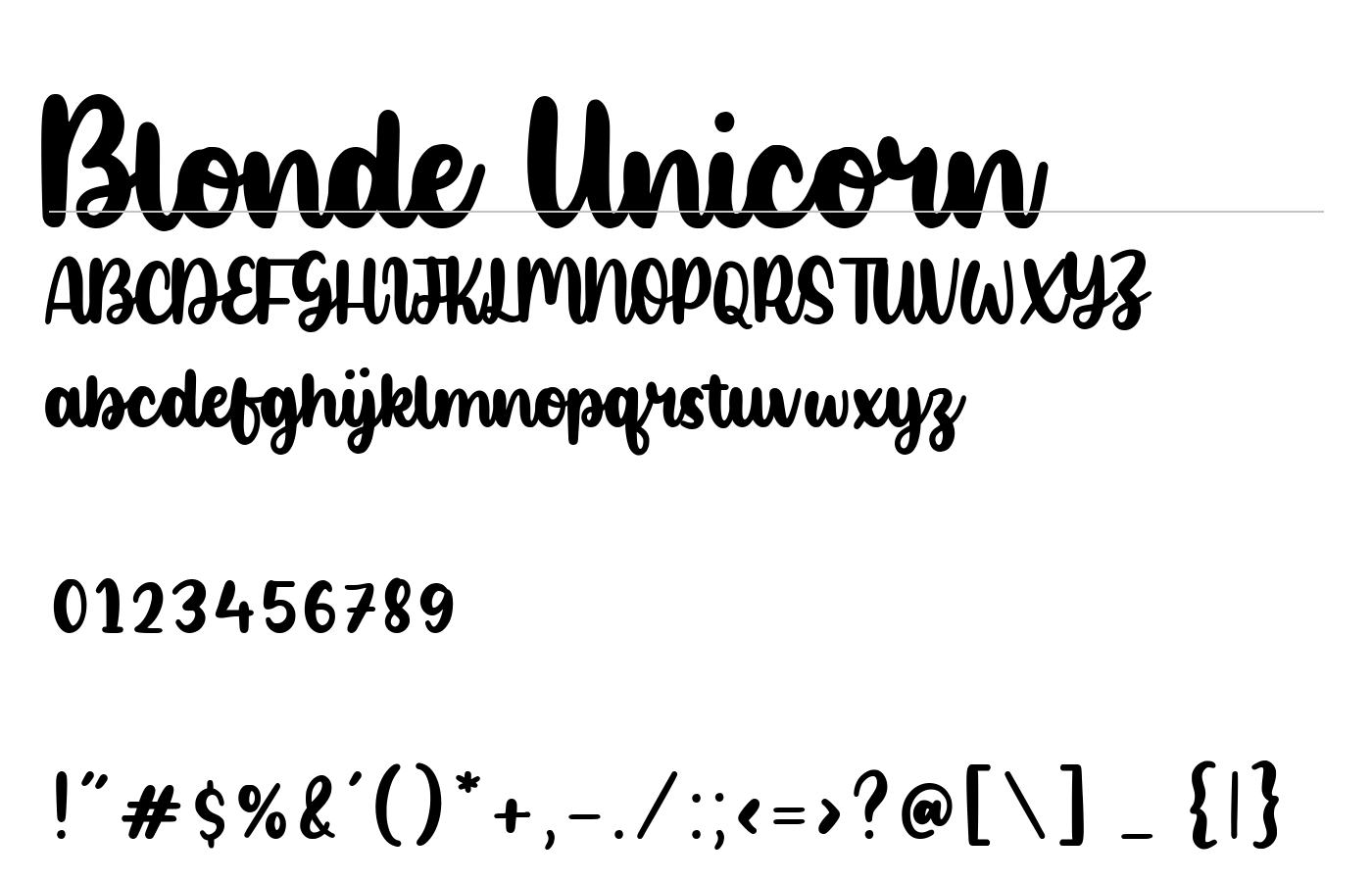
Blonde Unicorn is a playful and friendly script font with a bold, rounded style that mimics casual handwriting. Its smooth, connected letterforms and moderate x-height create an inviting and approachable vibe, making it ideal for cheerful branding, invitations, and creative projects that want to convey warmth and personality. This font works well in headlines and logos where a fun, informal touch is desired.
Blonde Unicorn Font
About Blonde Unicorn Font